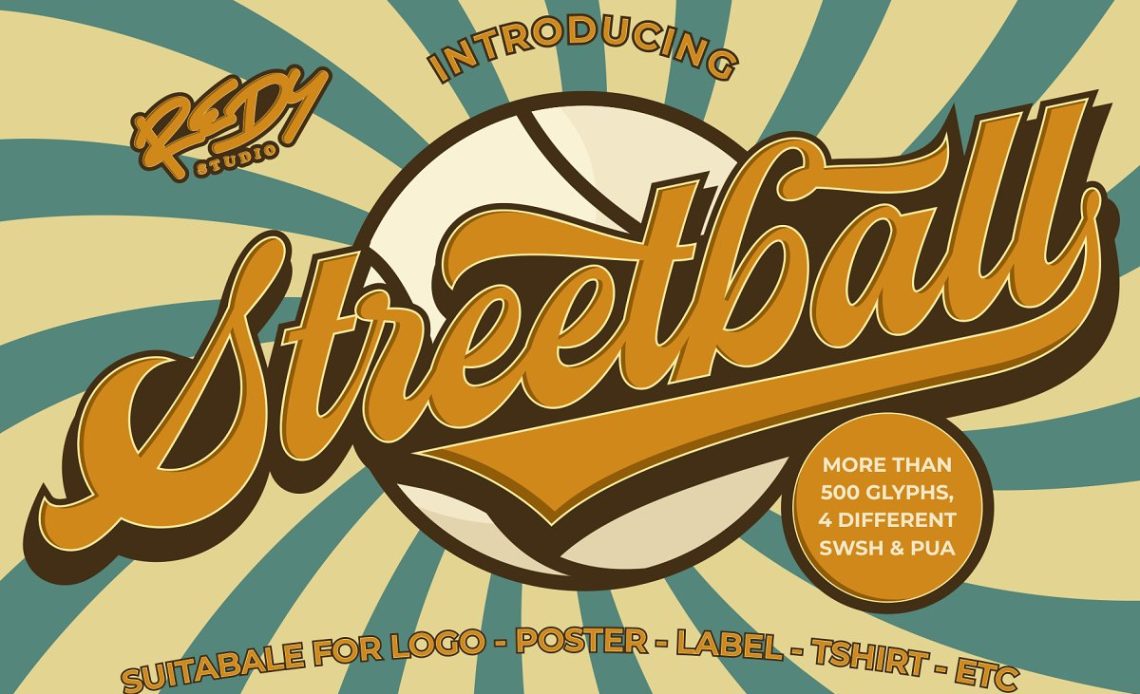
Introducing Streetball Vintage Font, the perfect script font for adventure enthusiasts! Created by Nurul Fajriredy, this font was inspired by the exciting world of baseball sports. With its many alternative characters, Streetball Vintage Font is sure to enhance any creative work.
This font is great for display and features a combination of vintage, hipster, retro, and stylish looks. It was designed with several precision layers to ensure excellent display quality, and contains a total of 511 glyphs and 4 different lowercase ending swashes.
Streetball Vintage Font is versatile and can be used for a variety of projects, including logotypes, advertising, name cards, posters, flyers, and cards. It features a full set of upper and lowercase characters, numbers and punctuation, ligatures, hundreds of alternates, swashes, and multilingual symbols.
If you're looking to add some excitement and adventure to your creative projects, Streetball Vintage Font is the perfect choice! With its unique style and wide range of characters, this font will make your projects stand out and come to life.